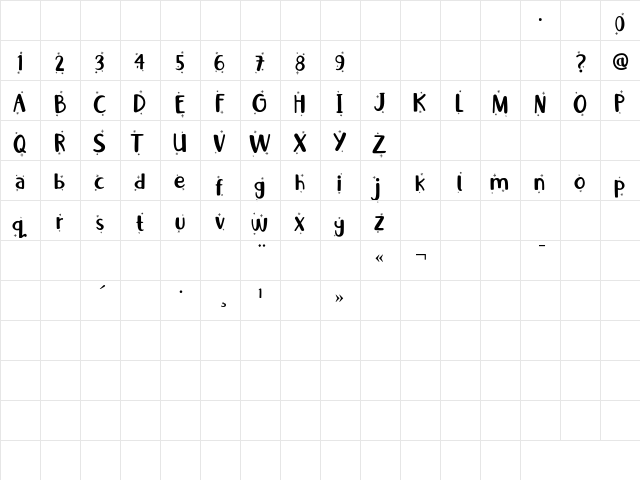
Little Santa Flake Regular
Design Context for Little Santa Flake Typeface
Little Santa Flake is a composed and adaptable typeface that performs quietly and consistently across a wide range of design contexts.